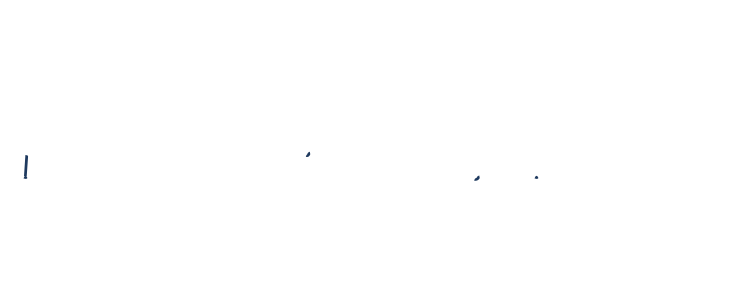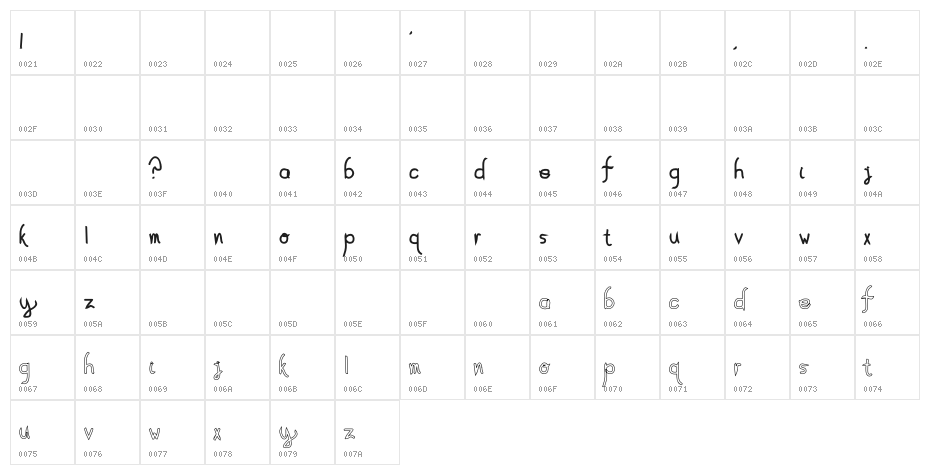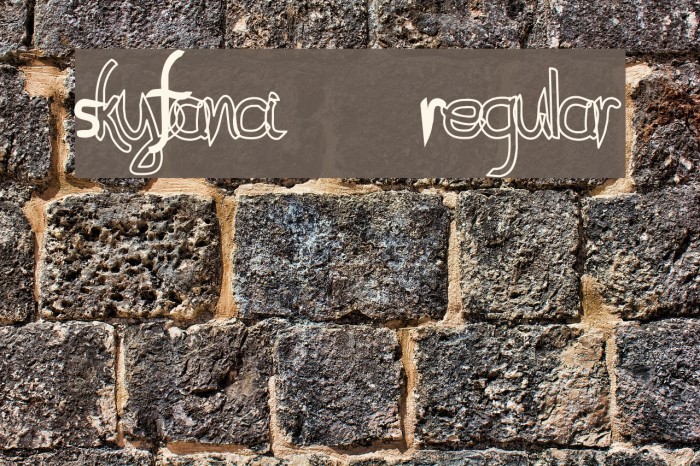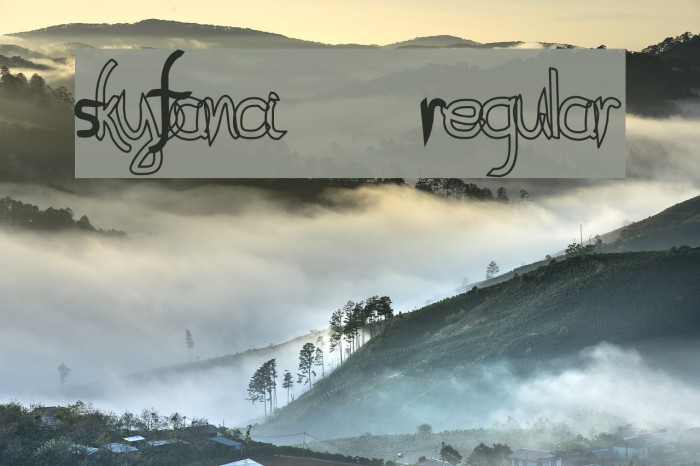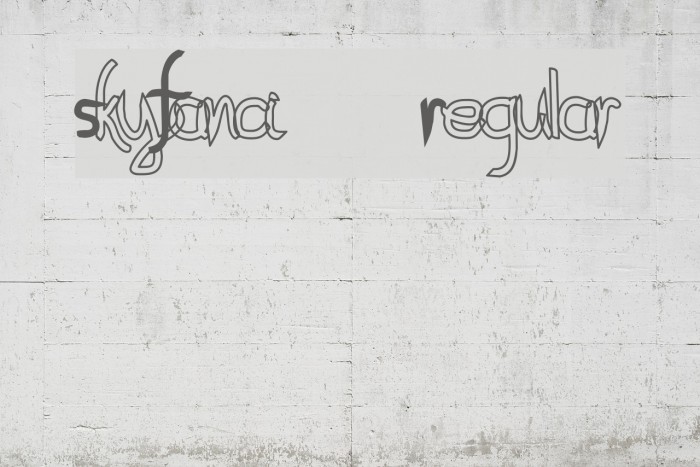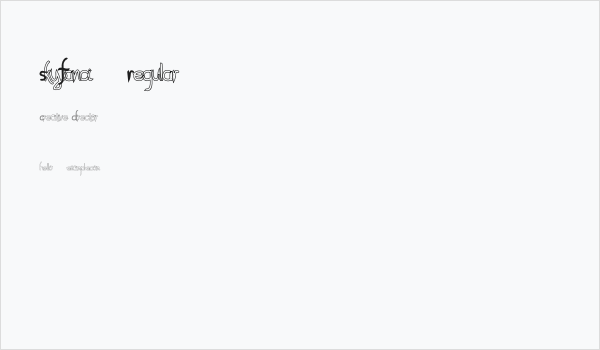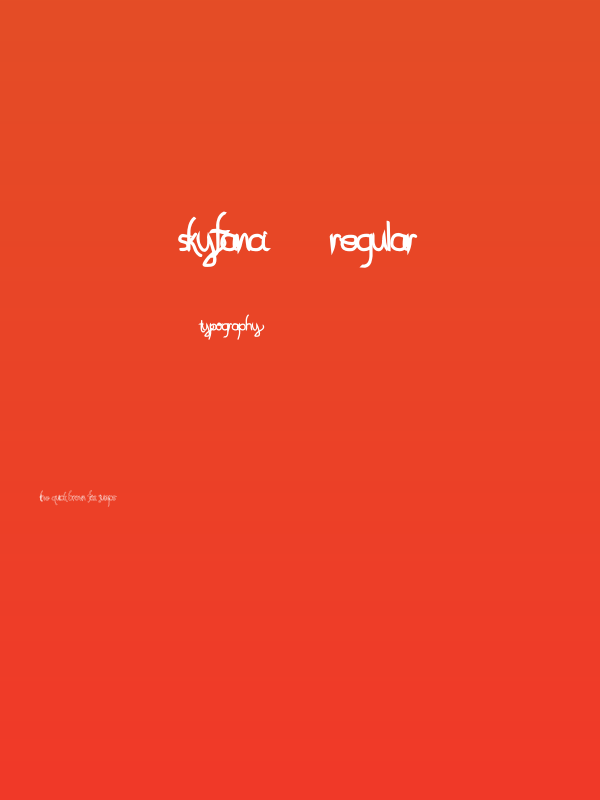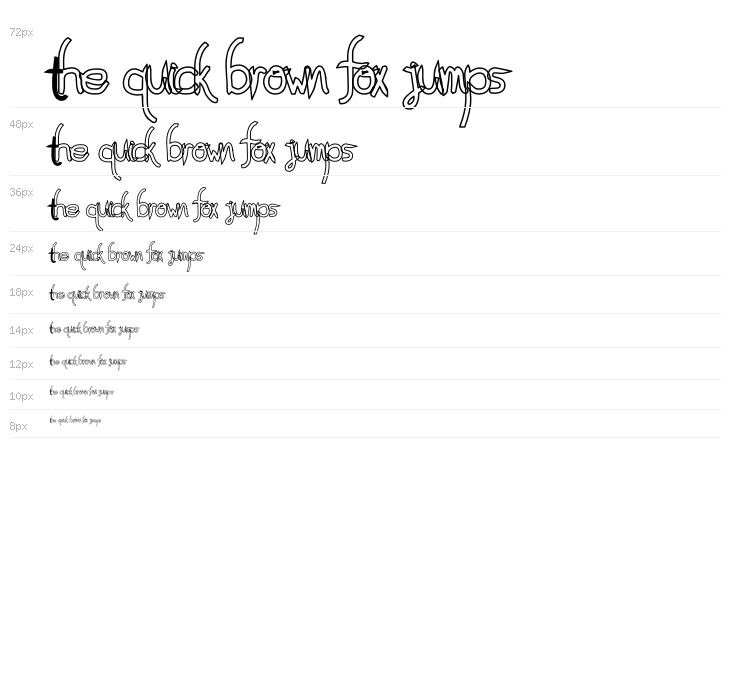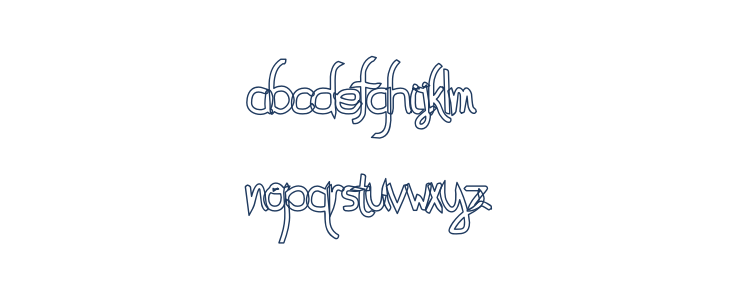
SkyFanci-Regular Font
SkyFanci-Regular Description
This font features a whimsical and artistic design, characterized by its flowing, interconnected strokes and playful curves. The letters exhibit a unique blend of thick and thin lines, creating a dynamic and lively appearance. The overall style is reminiscent of hand-drawn calligraphy, with each character maintaining a distinct individuality while contributing to a cohesive visual theme. The font's decorative nature makes it suitable for creative and expressive projects, where a touch of elegance and flair is desired. Its intricate design elements add a sense of movement and energy, making it stand out in any application.
| Use Case | Headlines, Artistic projects, Branding |
| Proposed Projects | Ideal for invitations, greeting cards, artistic posters, and branding materials that require a creative and expressive touch. |